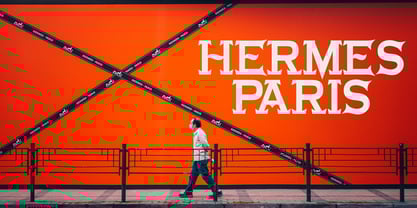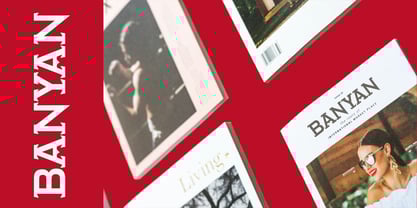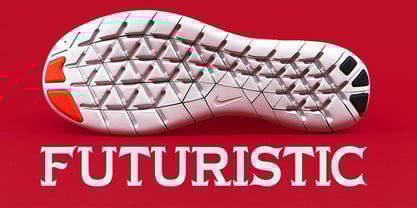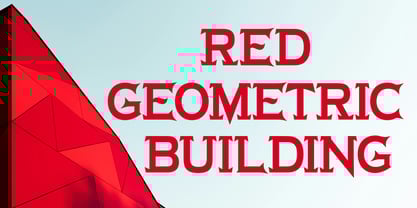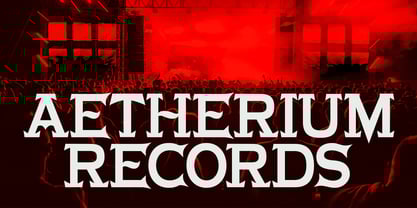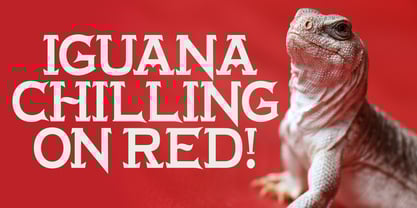
Amoset
by Aqeela Studio
The Amoset Font Family was designed by Muhammad Nasir and published by Aqeela Studio. Amoset contains 1 styles. More about this family
AMOSET is a bold and dynamic serif font that exudes a raw energy and rebellious spirit. Its angular forms, sharp edges, and intricate details give it a striking visual impact, reminiscent of heavy metal album covers and vintage rock posters. The font's confident presence makes it ideal for projects that demand attention and convey a sense of power and intensity. Whether used for bold headlines, edgy branding, or eye-catching merchandise, AMOSET is sure to leave a lasting impression.
Designers: Muhammad Nasir
Foundry: Aqeela Studio